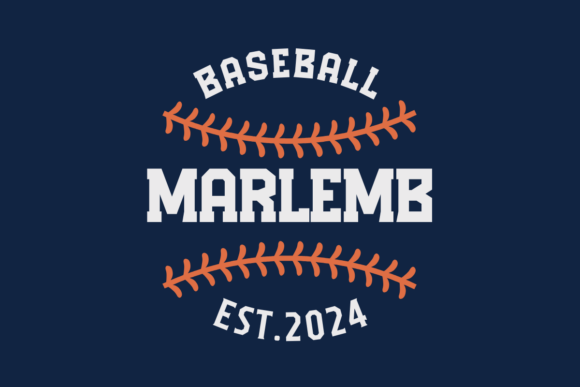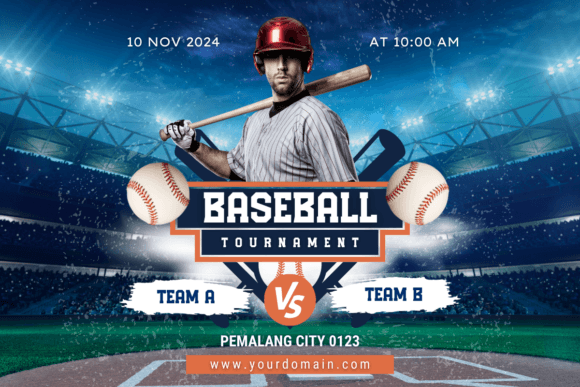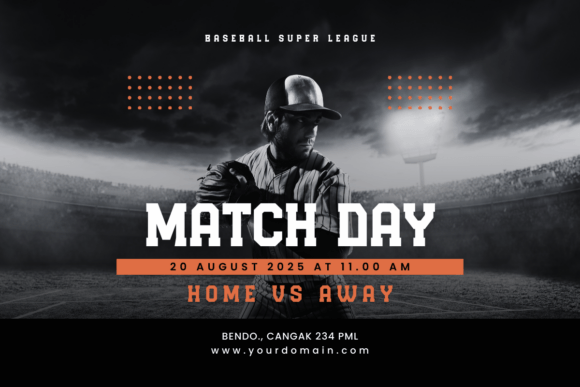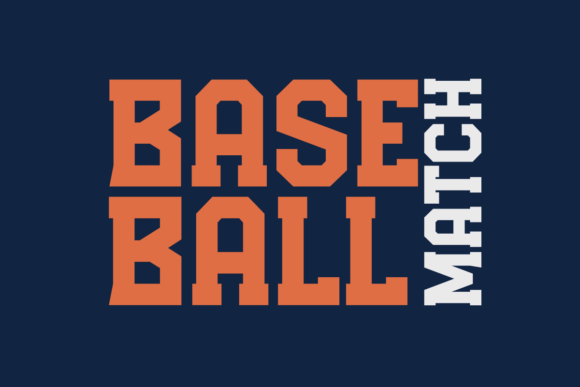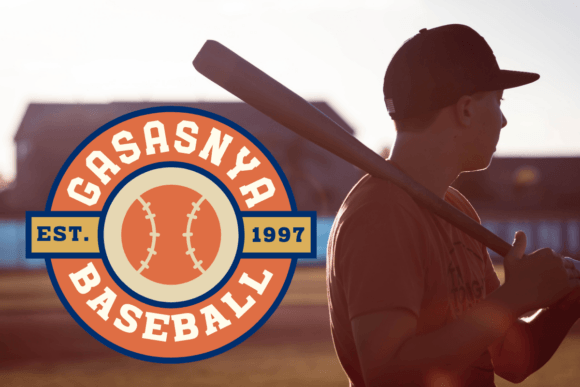
Unleash the Power of Blanks Font: Elevate Your Sports-Themed Designs
In the world of typography, fonts play a crucial role in conveying the tone and personality of a design. For athletic themes, team branding, and spirited event posters, a bold and sporty font is essential. This is where the Blanks Font comes into play – a powerful and bold slab serif font that captures the essence of competitive energy and dynamism.
The Unique Characteristics of Blanks Font
The Blanks Font boasts sturdy, blocky forms and sharp lines that evoke a sense of intensity and competitiveness. Its slab serif design gives it a distinctive edge, making it perfect for sports-related designs, especially baseball. The font’s sporty twist adds a dynamic flair, making it an excellent choice for jersey numbers, tournament announcements, or anything that demands attention on and off the field.
Why Blanks Font Stands Out
So, what sets Blanks Font apart from other fonts in the market? Here are a few reasons why it’s a top choice for designers and crafters:
• Bold and Attention-Grabbing: The Blanks Font is designed to make a statement. Its bold and sturdy forms ensure that your text stands out, even from a distance.
• Sporty Twist: The font’s sporty twist adds a dynamic flair, making it perfect for athletic themes and team branding.
• Versatile: Blanks Font is versatile and can be used for various design projects, from jersey numbers to event posters.
• Easy to Read: Despite its bold design, the font remains easy to read, making it perfect for use in a variety of contexts.
Perfect for Sports-Related Designs
The Blanks Font is specifically designed with sports-related designs in mind. Its bold and competitive edge makes it perfect for:
• Jersey Numbers: Give your team a professional look with bold and eye-catching jersey numbers.
• Tournament Announcements: Create attention-grabbing tournament announcements that set the tone for a competitive event.
• Event Posters: Design spirited event posters that capture the energy and excitement of a live event.
Tips for Using Blanks Font
To get the most out of the Blanks Font, here are a few tips to keep in mind:
• Use it Boldly: Don’t be afraid to use the Blanks Font in bold and large sizes to make a statement.
• Experiment with Colors: Try out different colors to find the perfect combination that matches your team’s brand or event theme.
• Pair it with Other Fonts: Experiment with pairing the Blanks Font with other fonts to create a unique and visually appealing design.
The Blanks Font is a powerful and bold slab serif font that’s perfect for athletic themes, team branding, and spirited event posters. Its sturdy, blocky forms and sharp lines capture the essence of competitive energy and dynamism, making it an excellent choice for sports-related designs. With its versatility, ease of use, and attention-grabbing design, the Blanks Font is a must-have for designers and crafters looking to elevate their sports-themed designs.